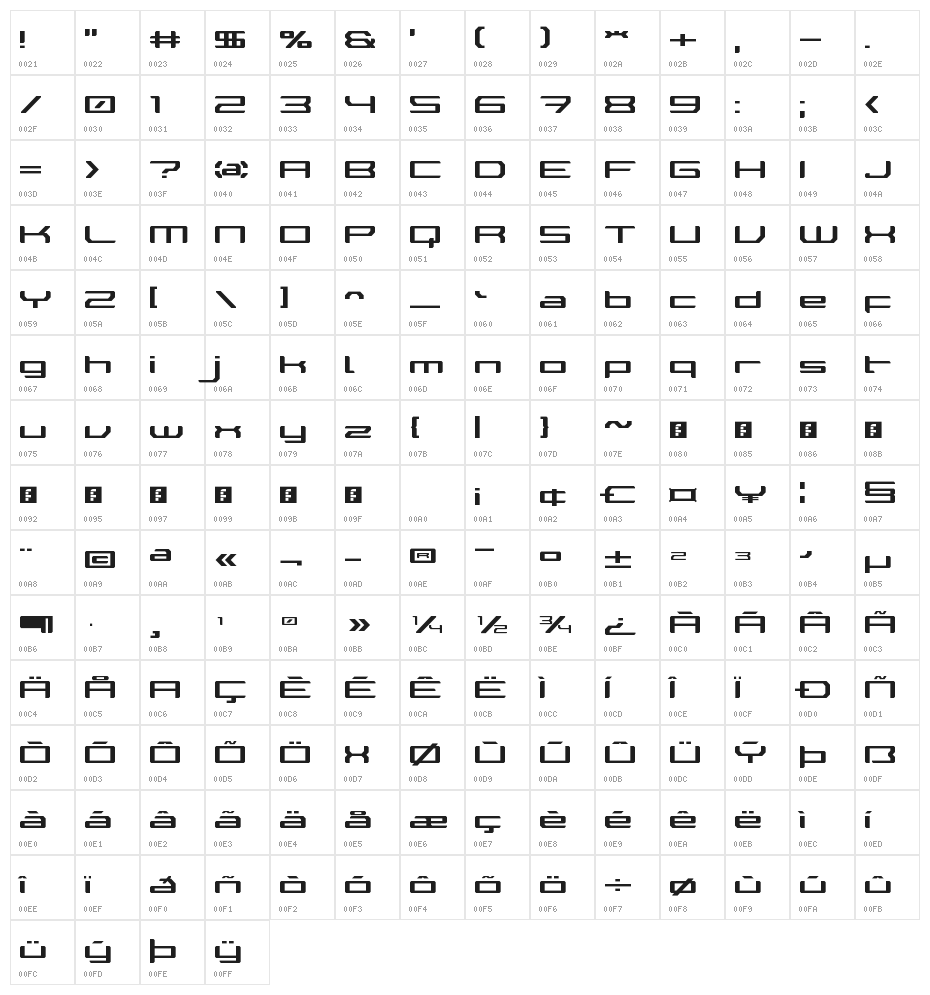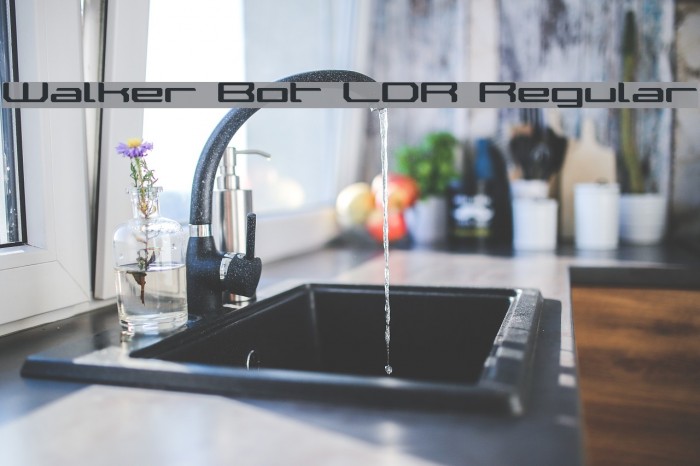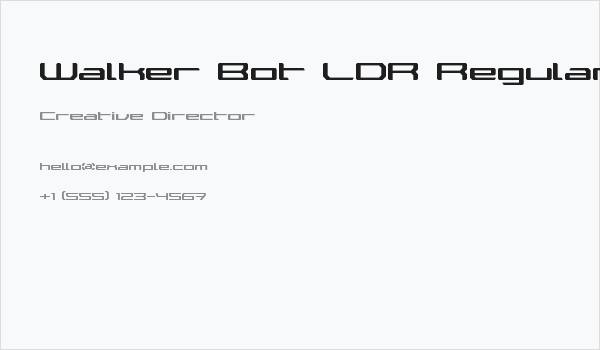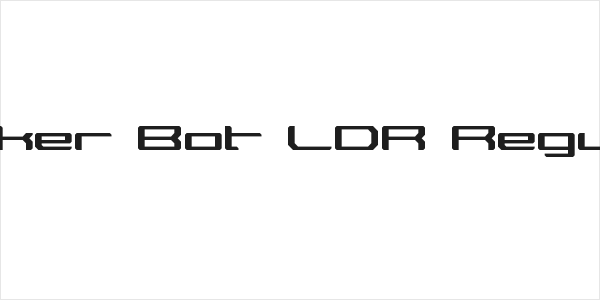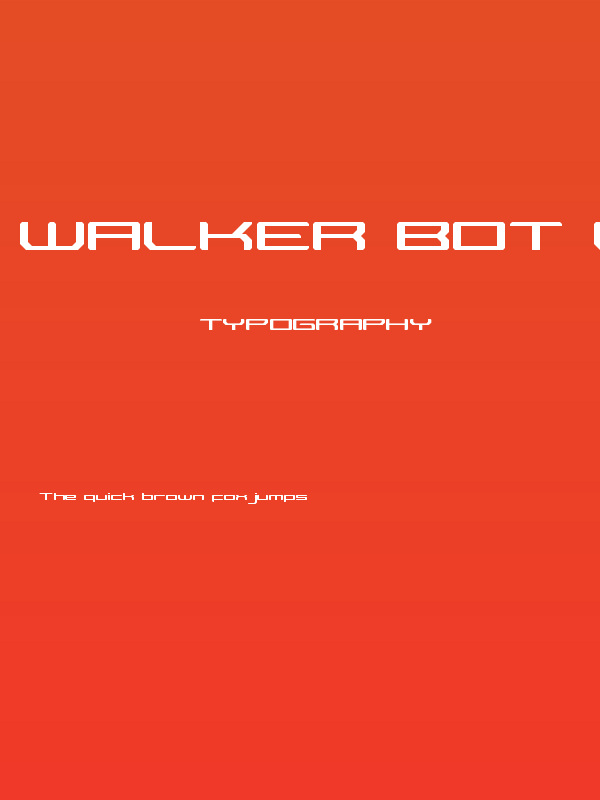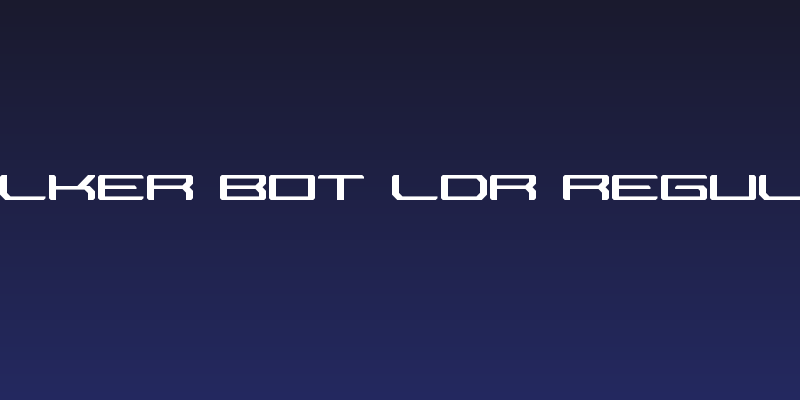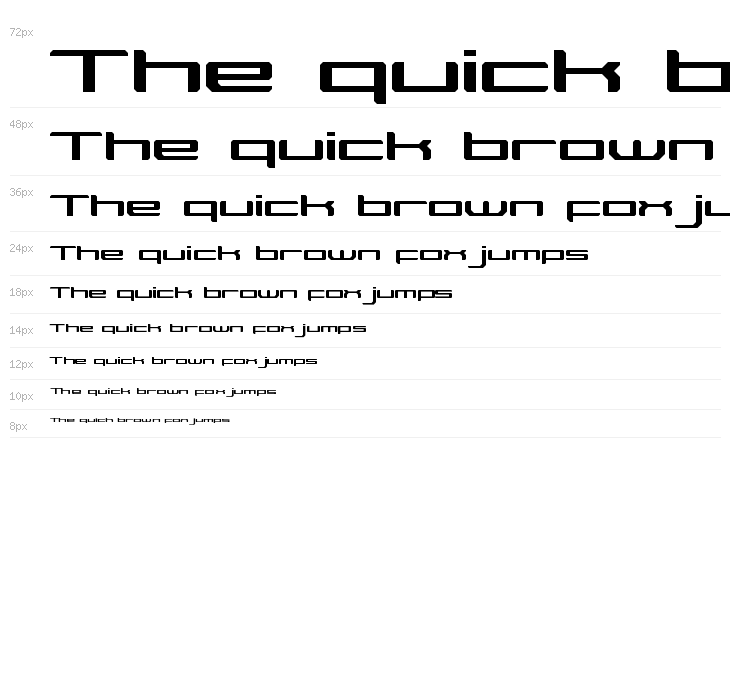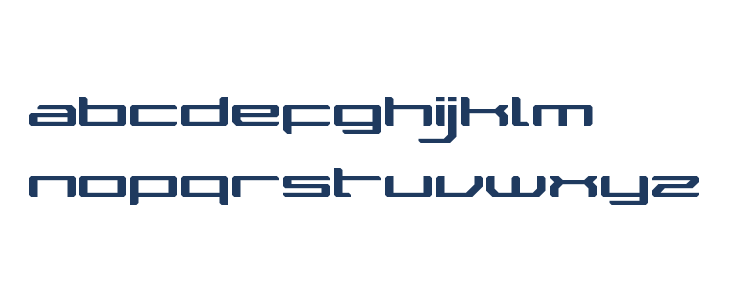
Walker Bot LDR Regular Font
Walker Bot LDR Regular Description
This font features a futuristic and geometric design, characterized by its angular and block-like letterforms. The uppercase and lowercase letters maintain a consistent style, with sharp edges and a uniform stroke width. The numerals and special characters follow the same aesthetic, providing a cohesive look across all glyphs. The font's structure is clean and modern, making it suitable for digital and tech-related projects. Its distinct appearance ensures high readability while maintaining a unique visual appeal.
Proposed ProjectsIdeal for tech branding, digital interfaces, video game design, and sci-fi themed projects.